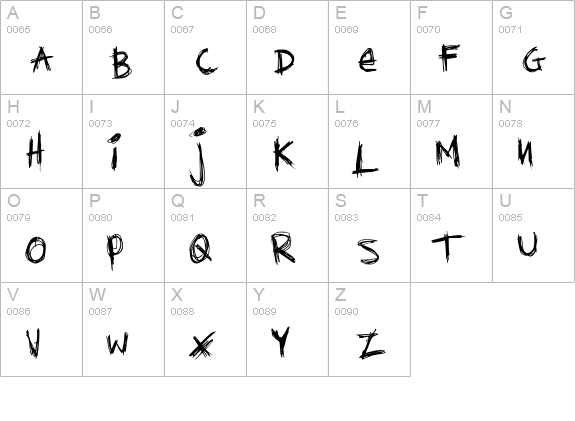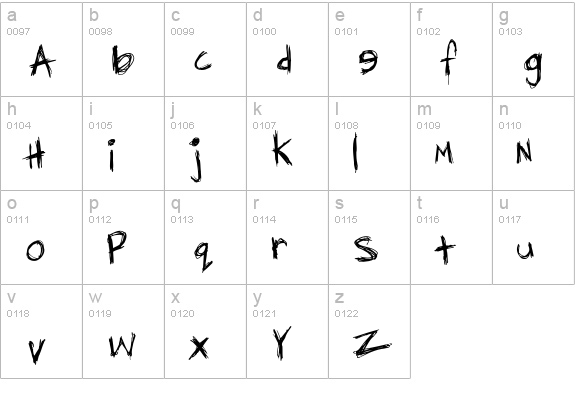
Diediedie Font Details
The Diediedie font is a bold and edgy typeface that exudes a sense of modernity and sophistication. Its sharp angles and unique letterforms make it stand out from the crowd, perfect for making a statement in your designs. Whether you're working on a poster, logo, or any other creative project, Diediedie will add a touch of boldness and style. What's even better is that the Diediedie font is available for free download at FontsMarket.com. So you can easily add this striking typeface to your font collection without breaking the bank. Don't miss out on the opportunity to elevate your designs with the distinctive Diediedie font today!